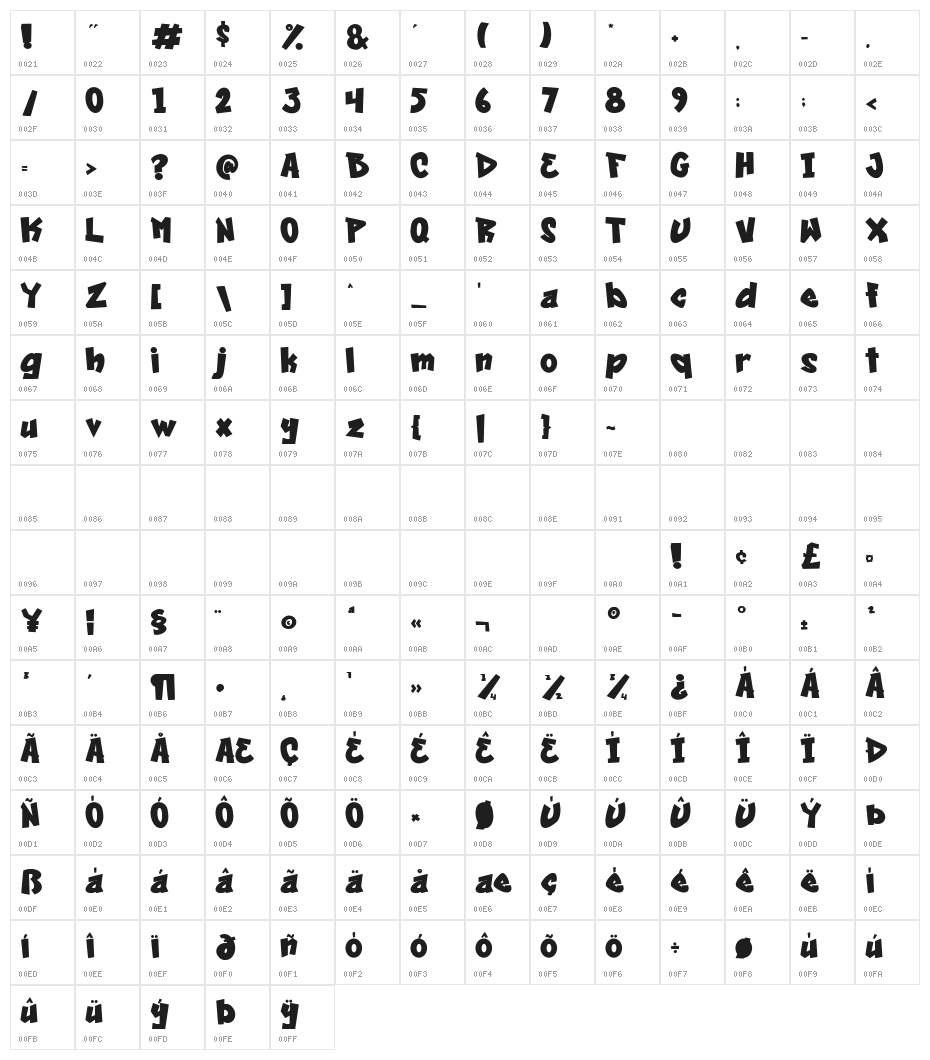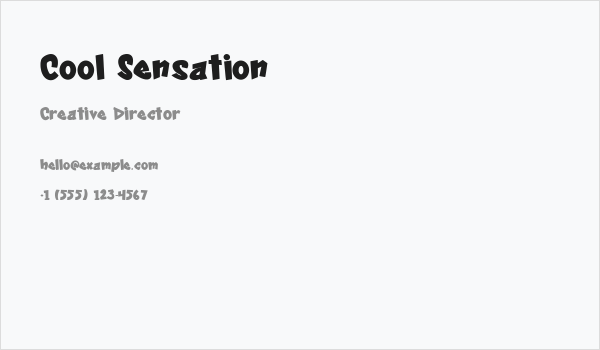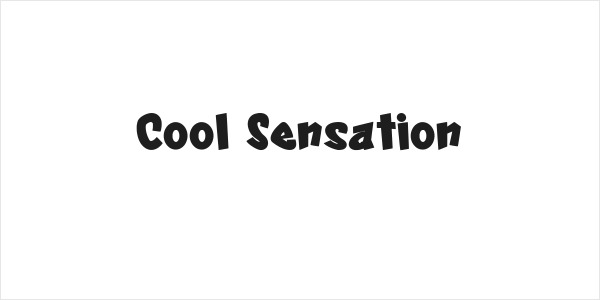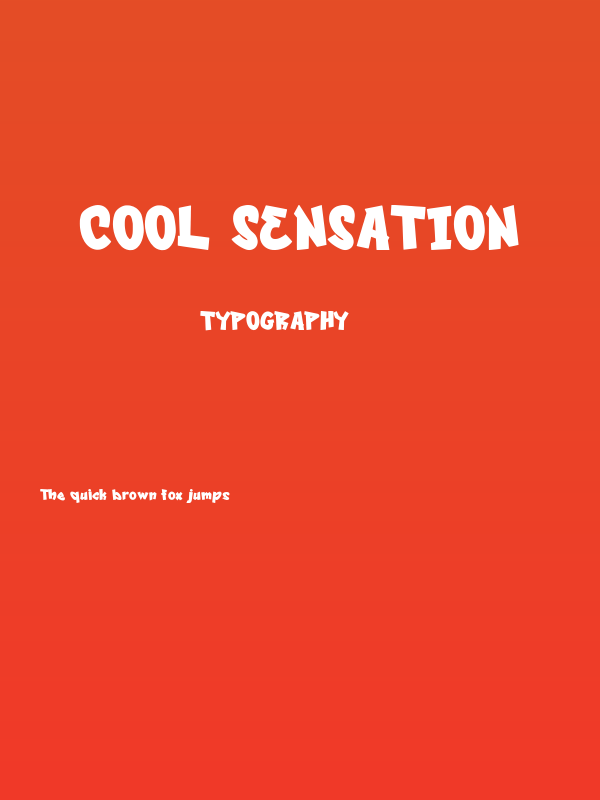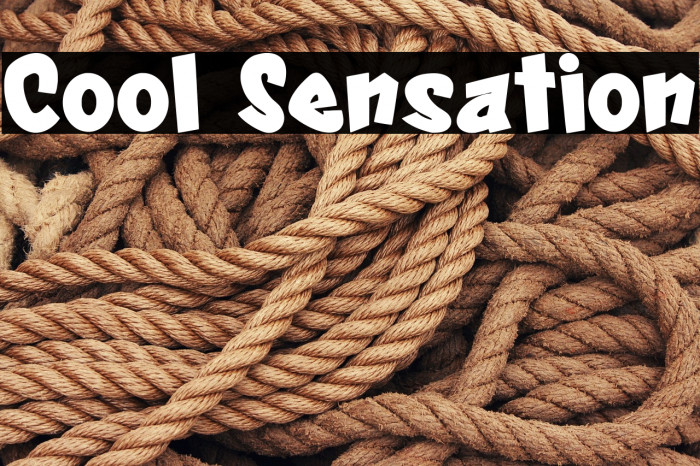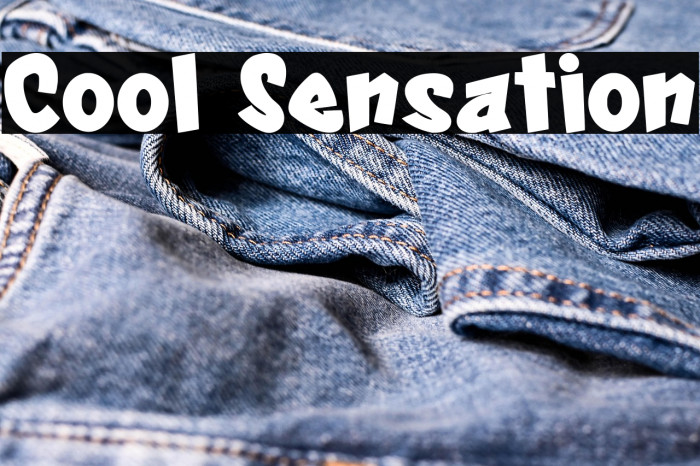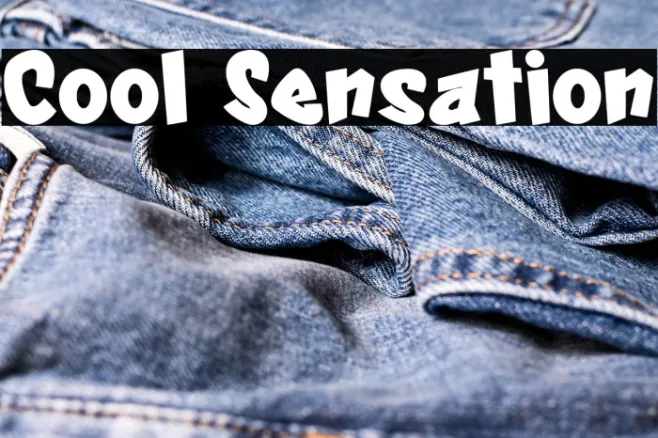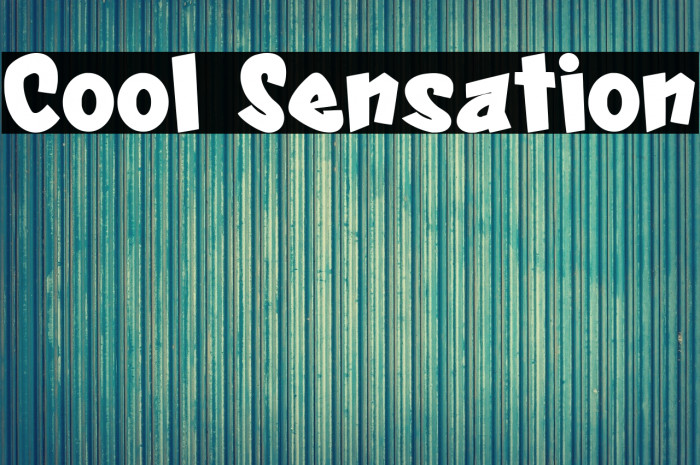
Cool Sensation Font
Cool Sensation Description
This font exudes a playful and bold personality, characterized by its thick, uneven strokes and exaggerated curves. The letters have a whimsical, cartoonish appearance, making them stand out with a lively and energetic vibe. The uppercase and lowercase letters maintain a consistent style, with a slightly irregular alignment that adds to its charm. The numbers and special characters follow the same playful design, ensuring a cohesive look across all elements. This font is perfect for projects that require a fun and informal touch.
| Overall Style | Playful, Cartoonish |
| Proposed Projects | Ideal for children's books, comic strips, playful branding, and party invitations. |